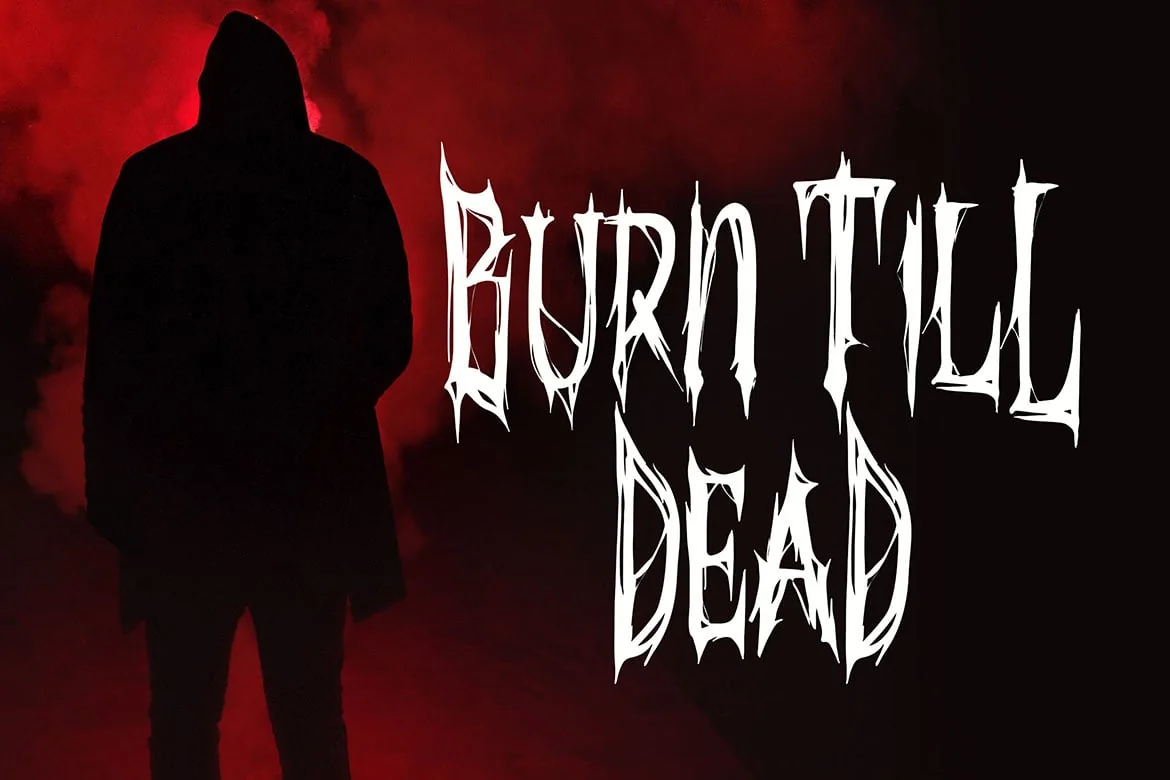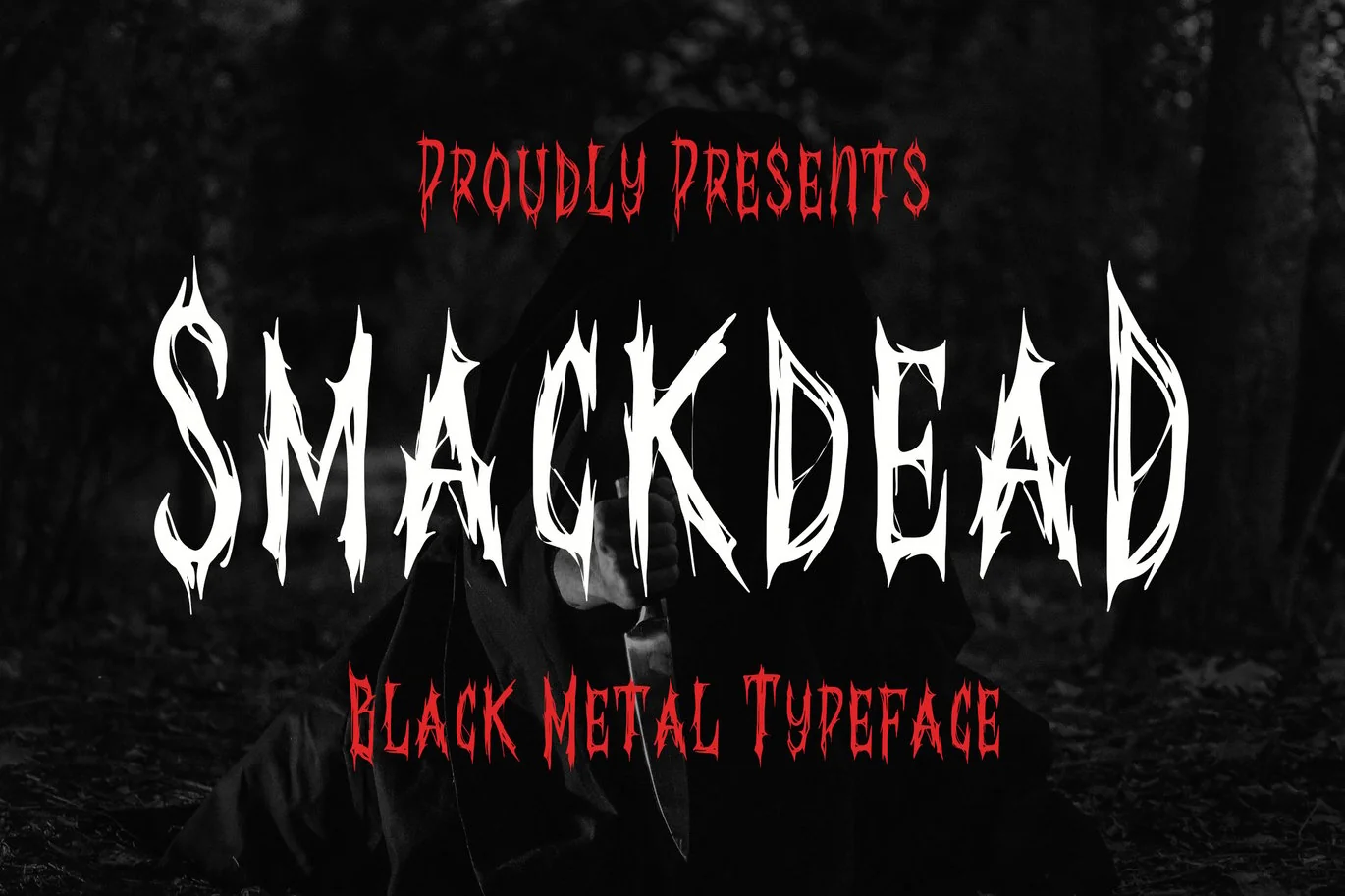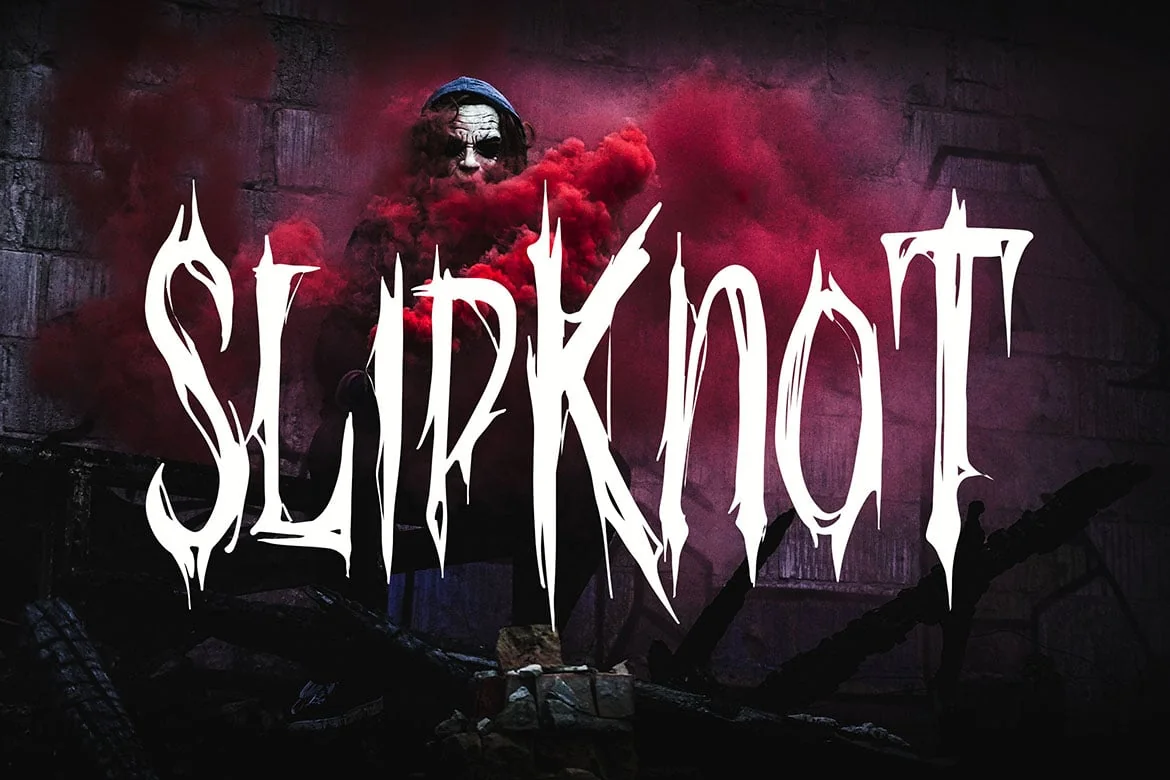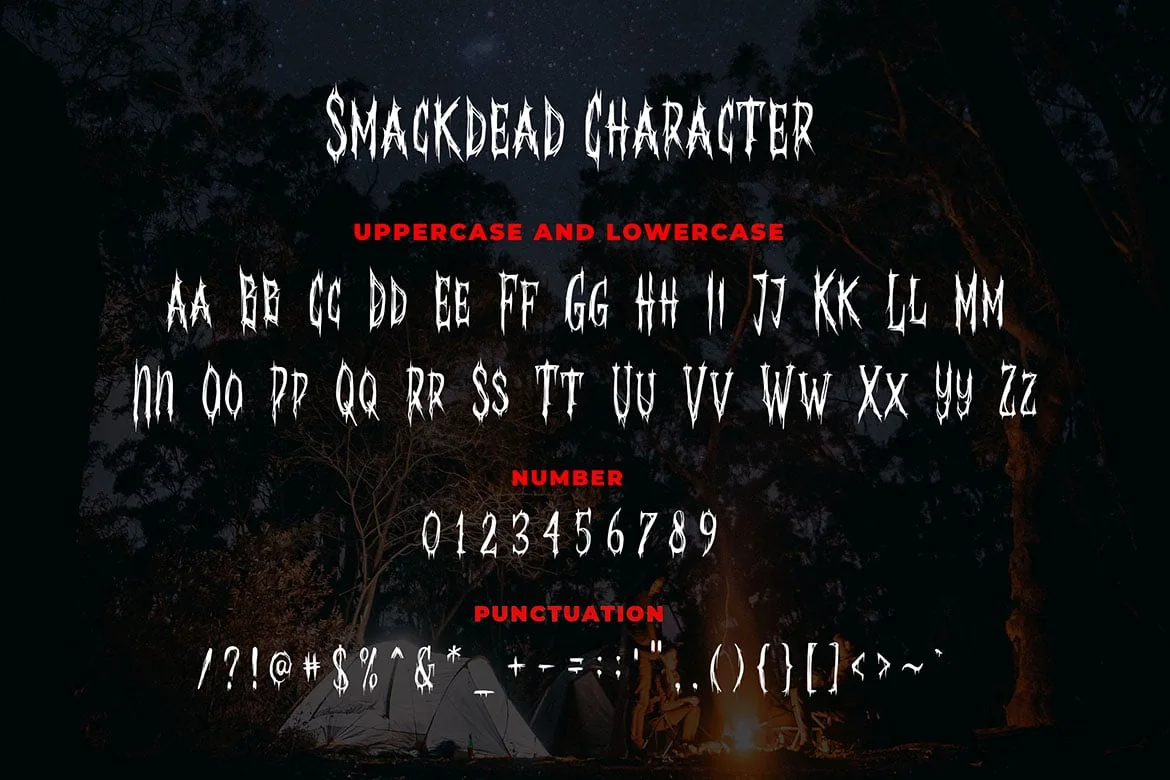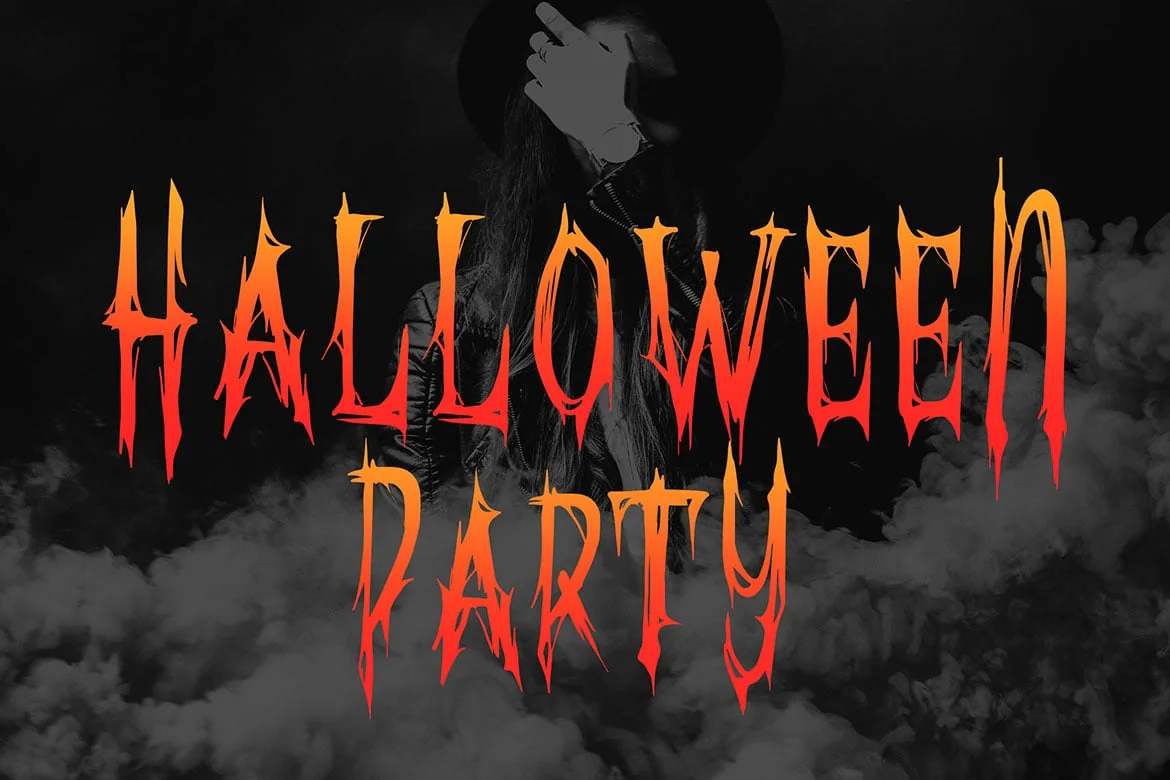
Smackdead – Black Metal Typeface
Introducing of our new product the name is Smackdead Black Metal Typeface. Smackdead inspired by Black Metal style with a horror theme very good for horror poster, metal music, flyer, album cover, merchandise etc
MULTILINGUAL ACCENT :
ŽžŠŒšŸÀÁÂÃÄÅÆÇÈÉÊËÌÍÎÏÐÑÒÓÔÕÖØÙÚÛÜÝßàáâãäåæçèéêëìíîïñòóôõöøùúûüýÿ